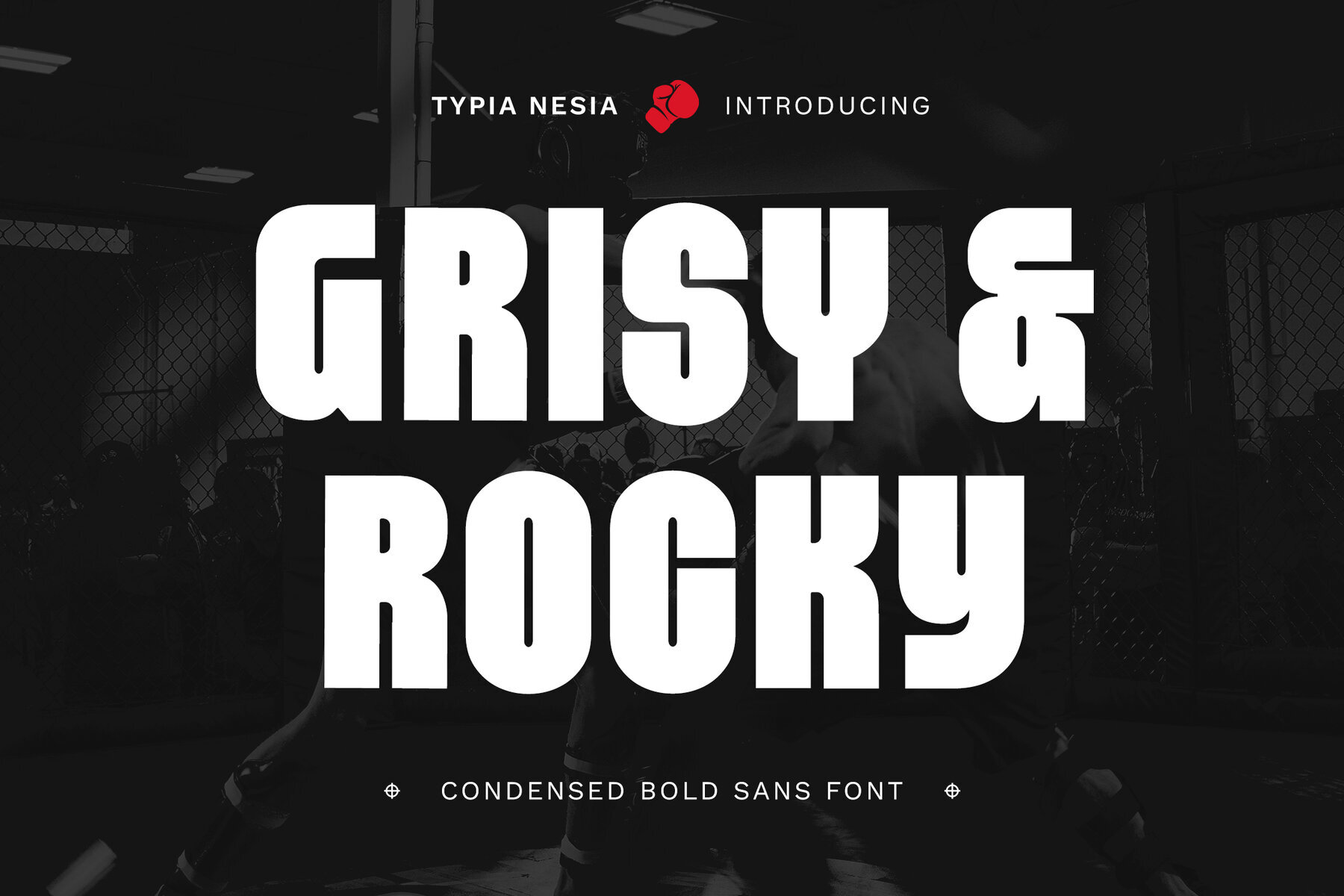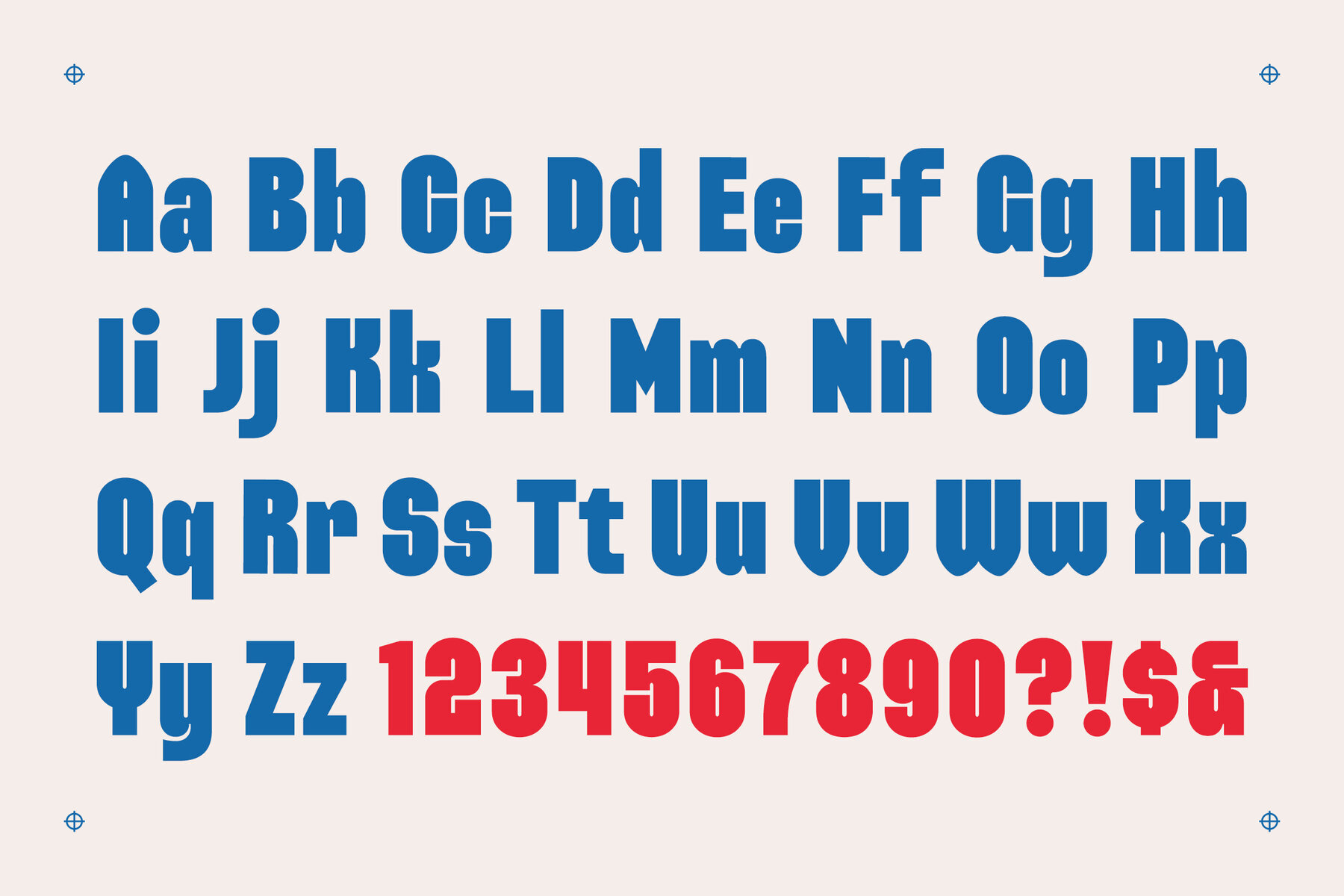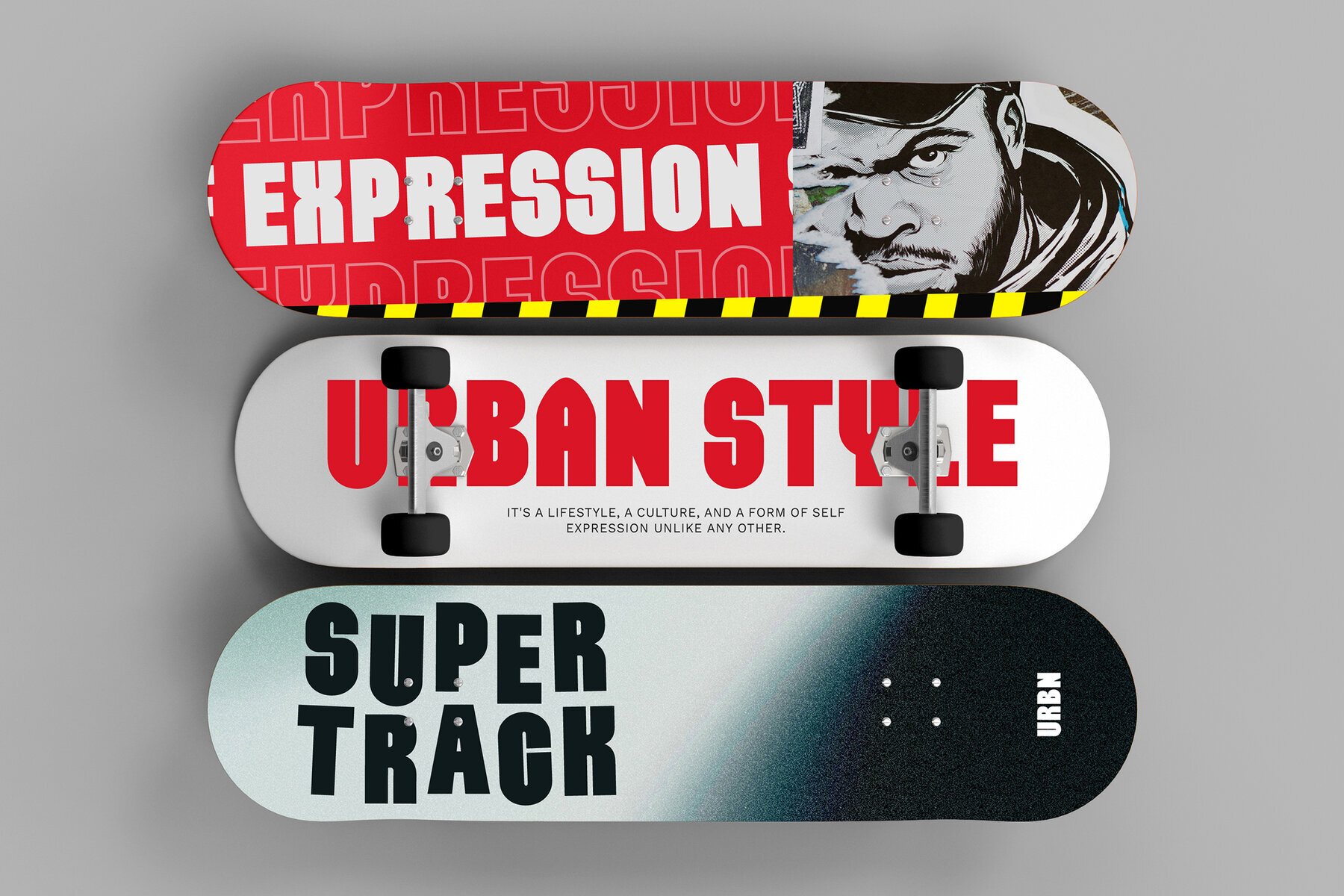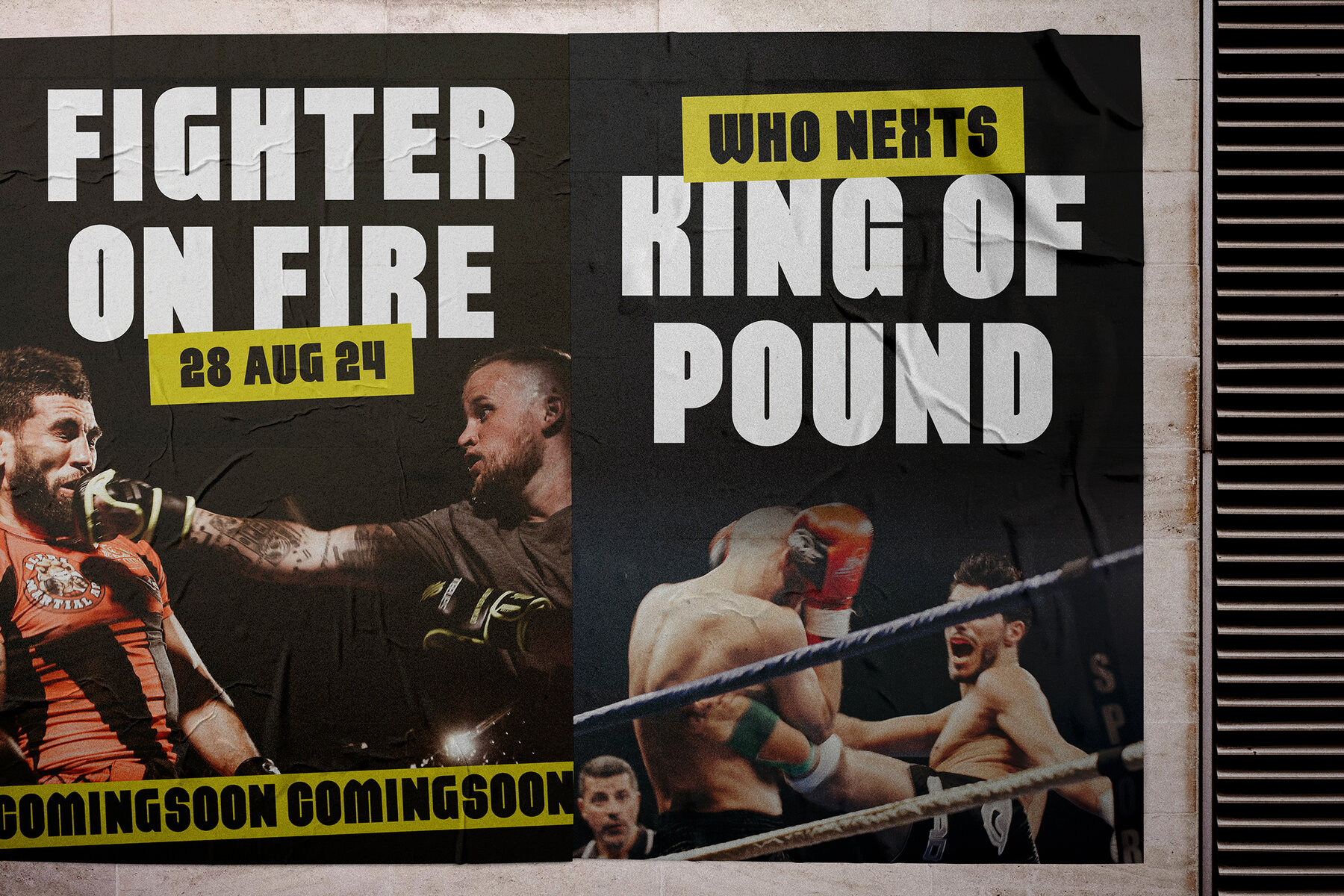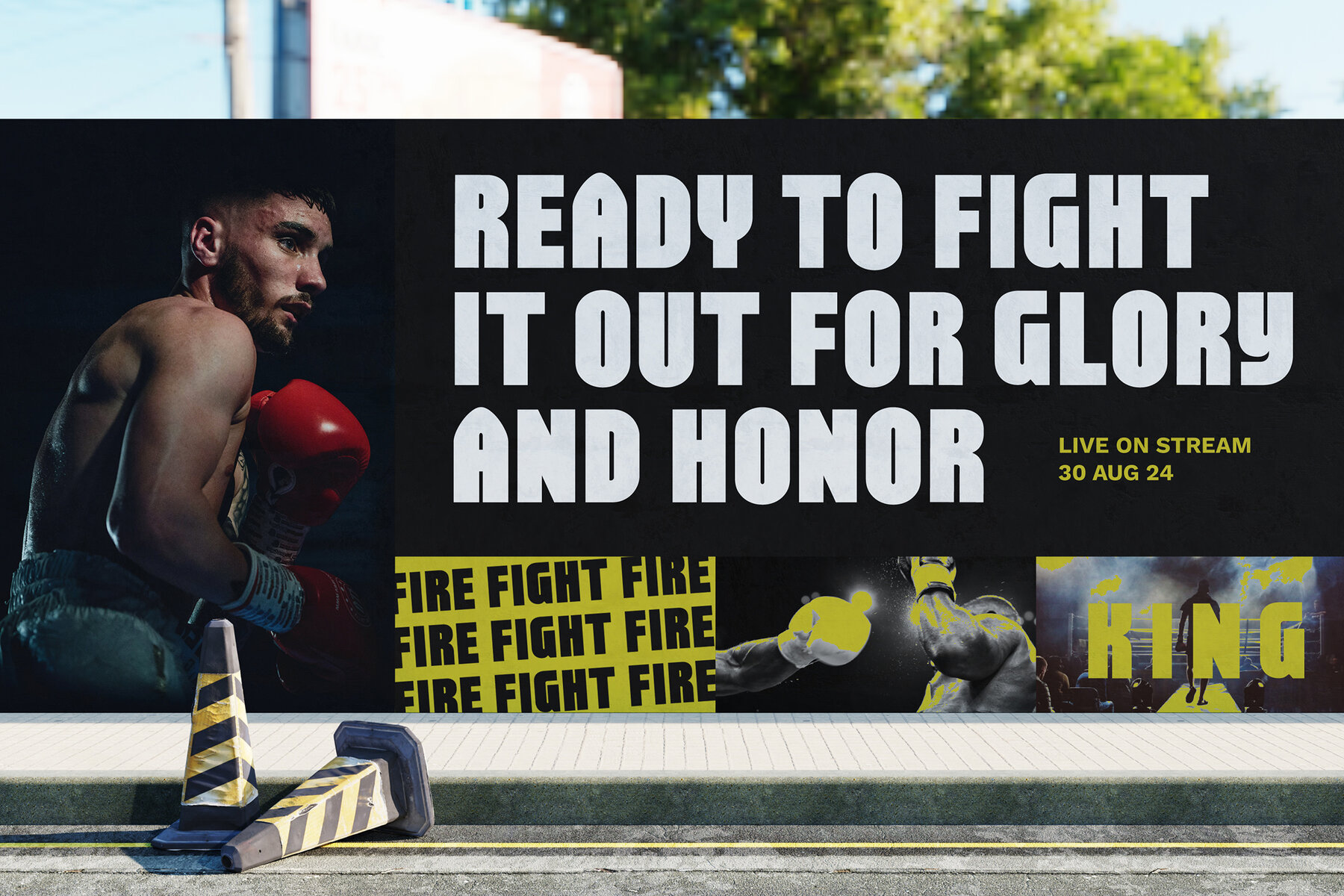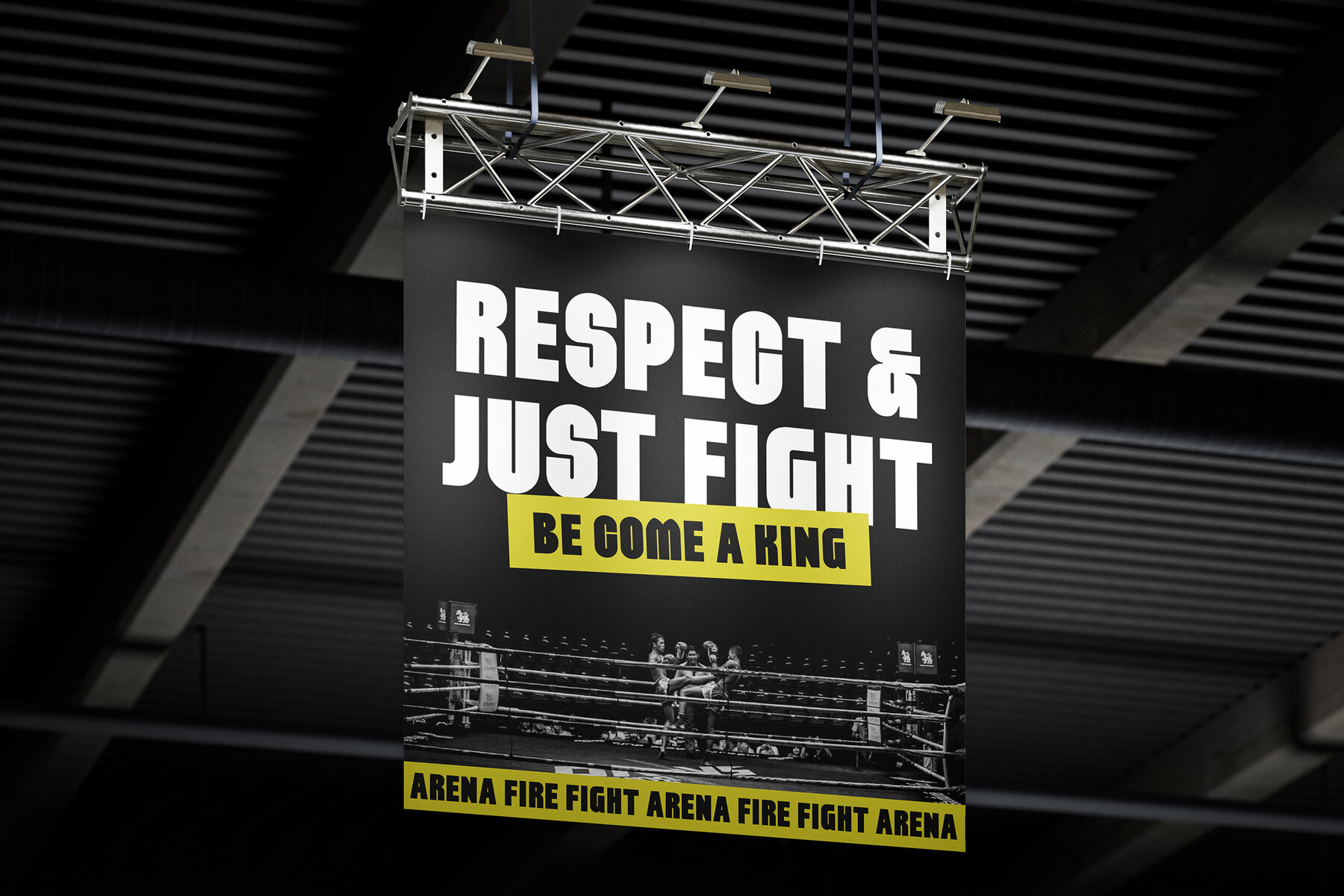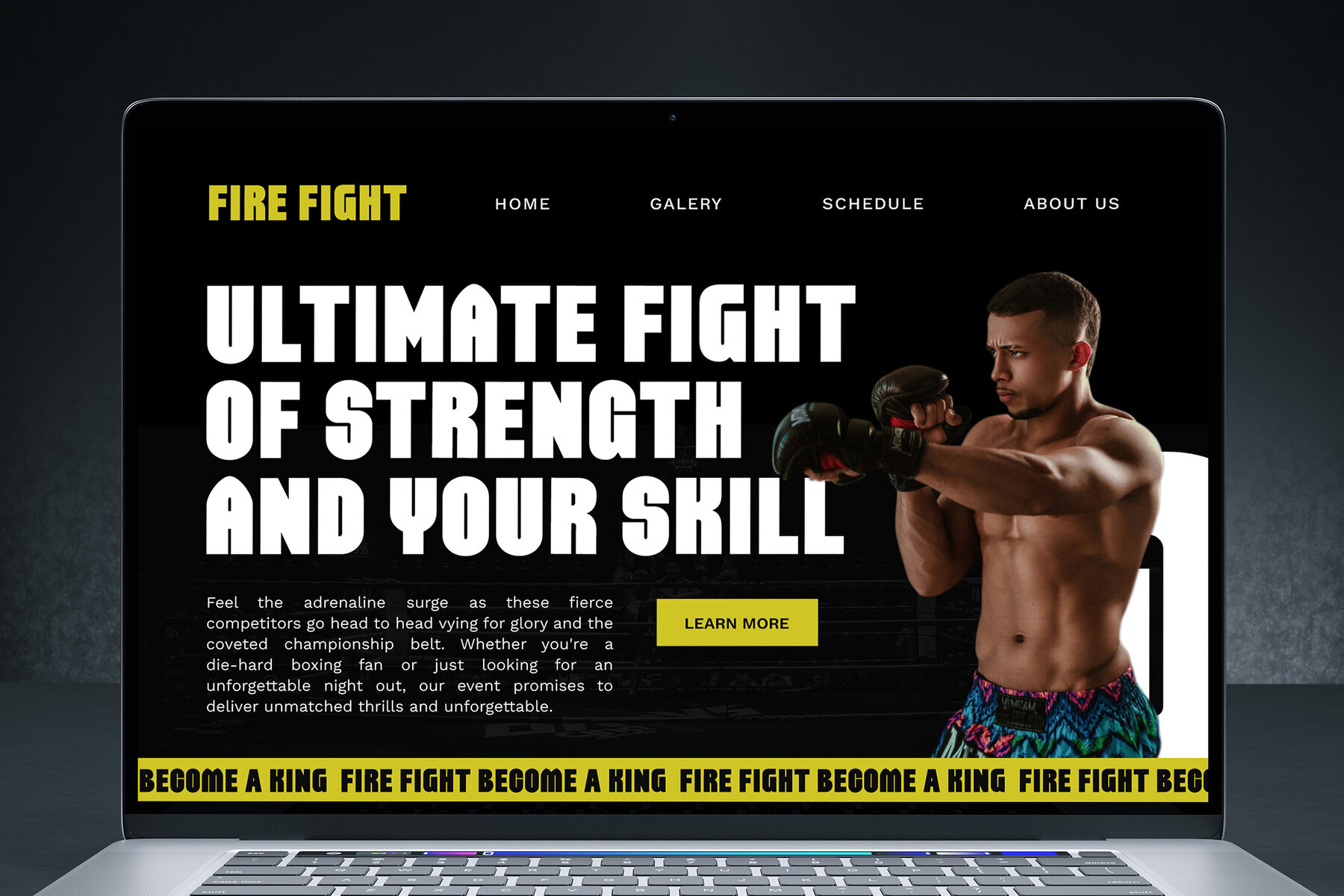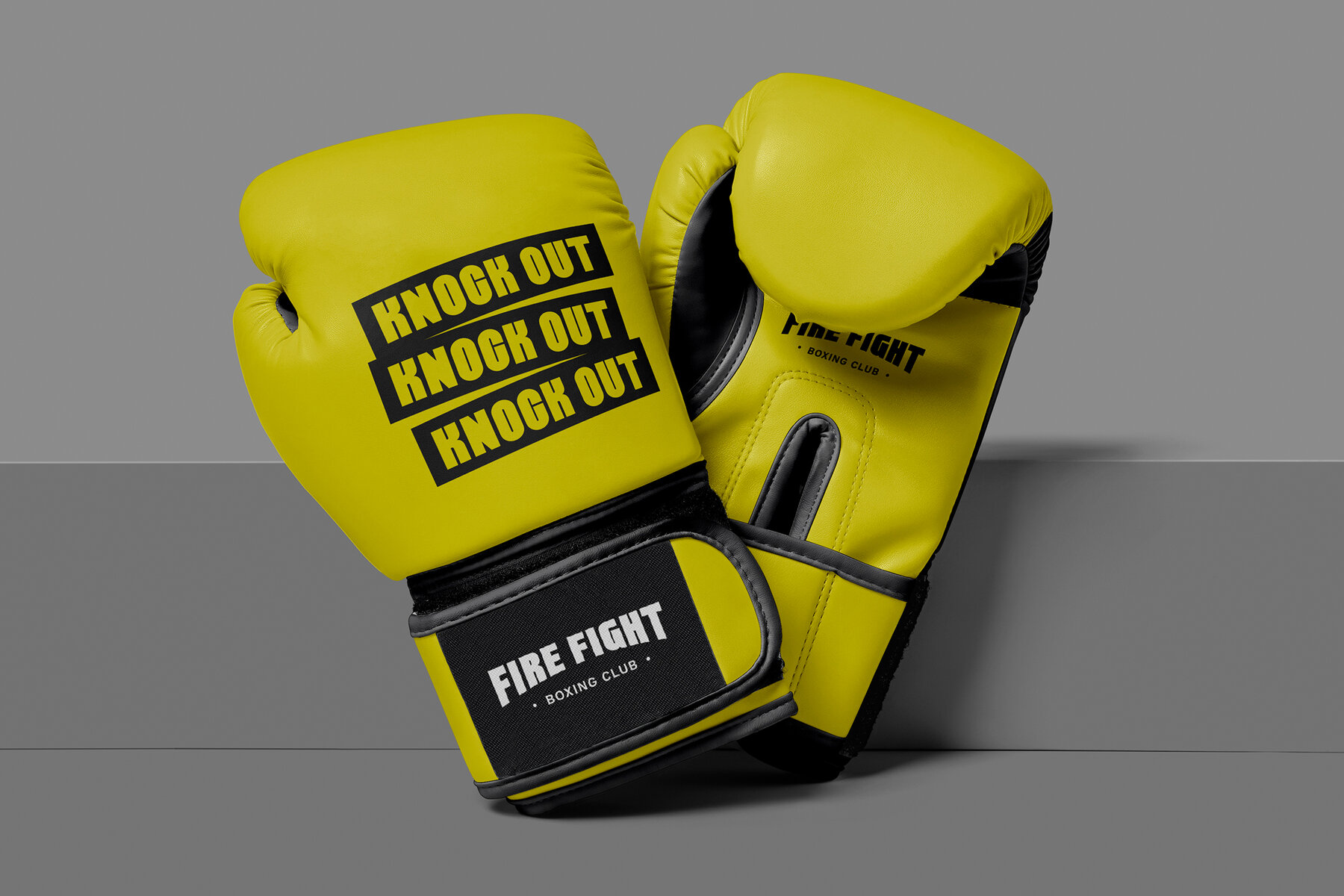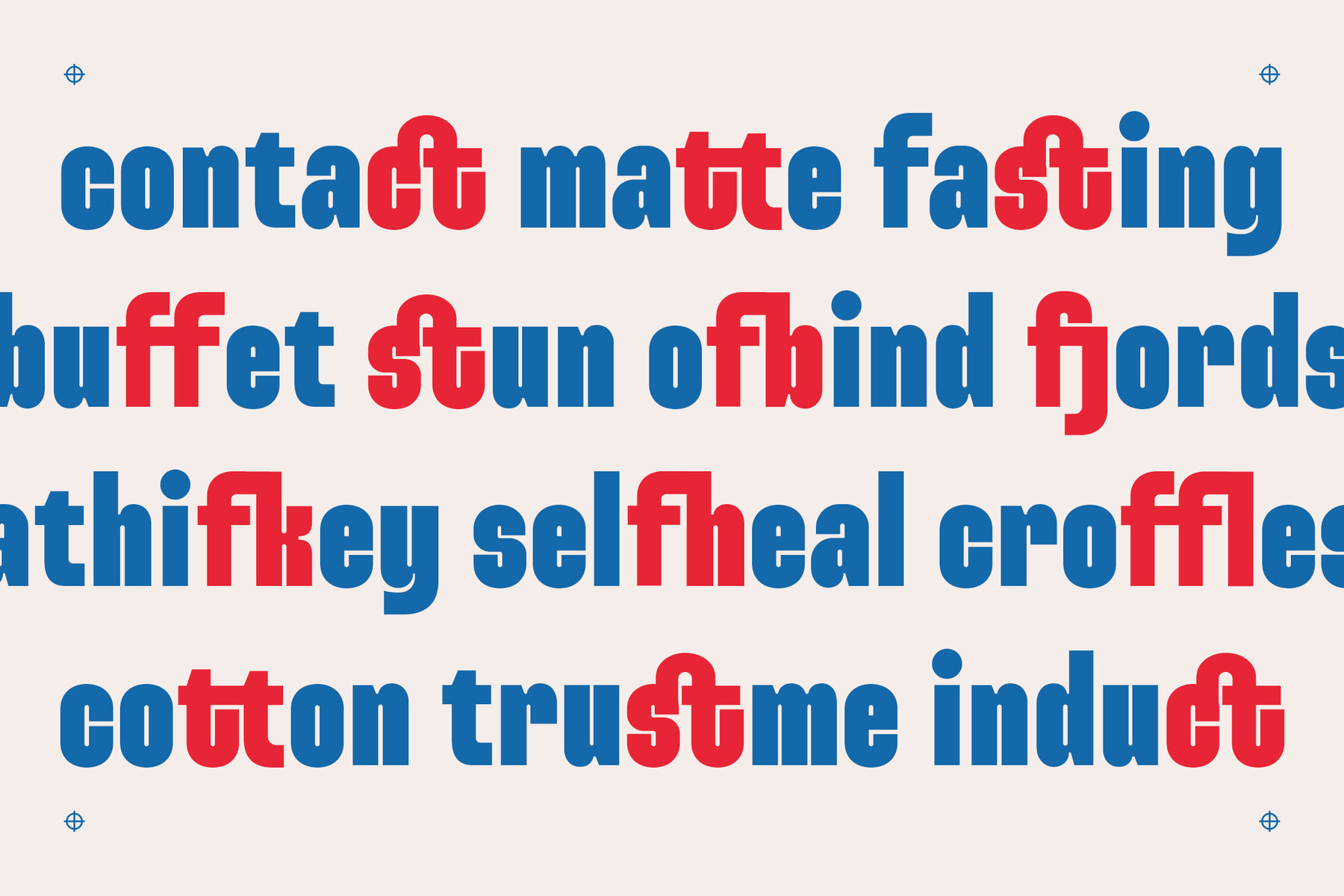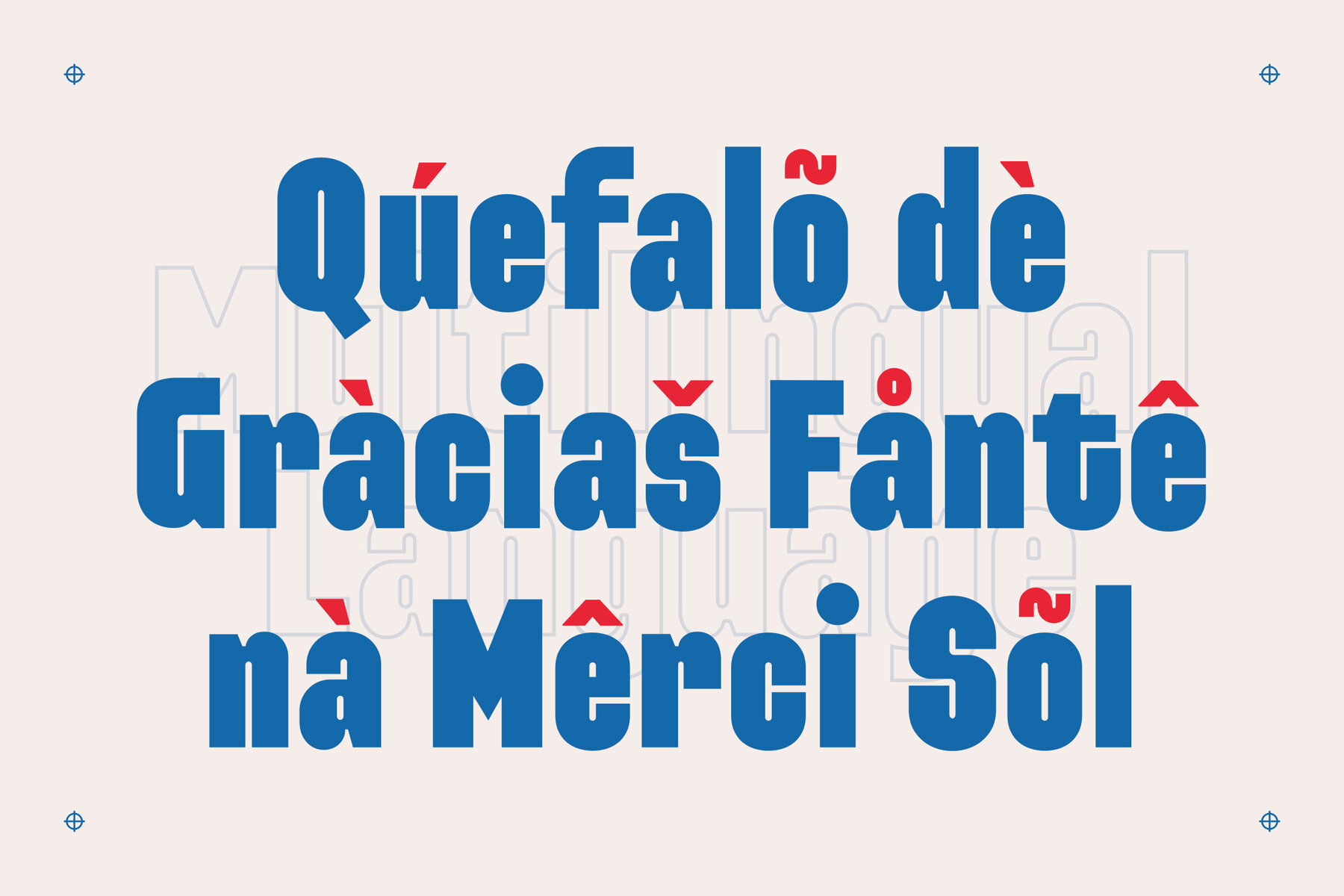
Grisy and Rocky Font
Grisy Rocky Regular
Grisy & Rocky offers a Condensed Bold Sans Serif font that epitomizes modernity and versatility. Its compact design radiates confidence, making it ideal for impactful design applications. Perfect for headlines, posters, branding materials, logo design, product packaging, apparel design, event promotions, and more, this font adds a touch of contemporary sophistication to any project. The bold sans serif style commands attention and communicates strength effectively.
Equipped with ligatures and alternates, Grisy & Rocky enhances the fluidity and diversity of its characters, allowing for creative expression and customization. It supports uppercase and lowercase letters, punctuation marks, numerals, and multilingual characters, catering to diverse design needs. Crafted with modern typography principles, this Condensed Bold Sans Serif font reflects a deep understanding of design aesthetics and ensures your projects achieve maximum impact.